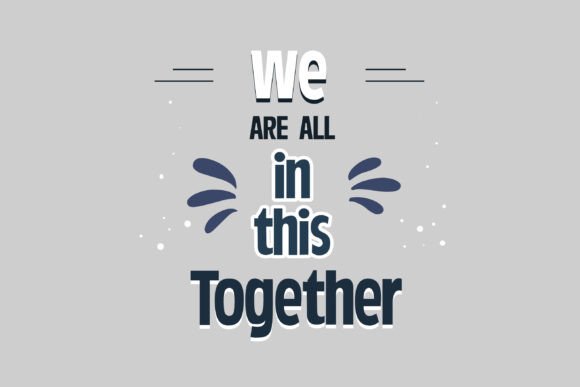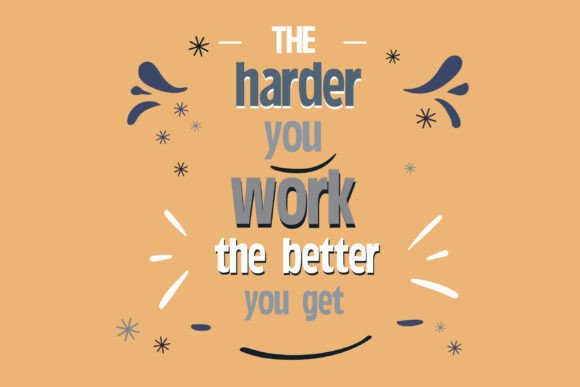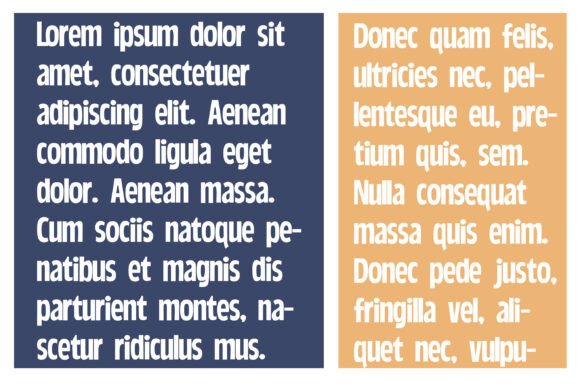
Rumor Mill Font
This hand-crafted sans serif is a bold sans that is great for titles, displays and posters.Light and bold version included.A hand-crafted font is a font that is designed to look like it was written by hand. It is often used for invitations, greeting cards, and other items. Handwritten fonts can be either formal or informal, and they can be used for a variety of purposes.